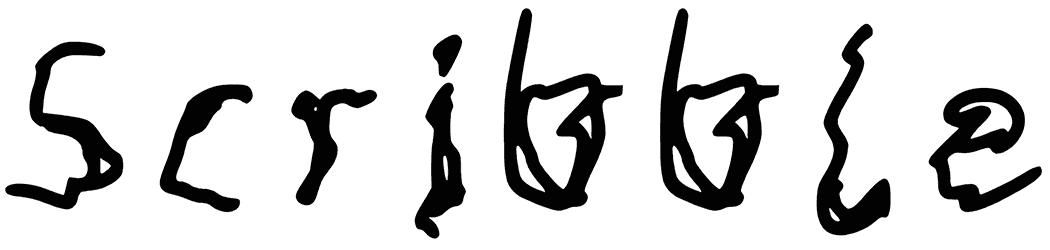
Scribble Font
When you set a distinct and eye-catching letterform on your words, everything they say to your followers will capture a lot of attention. The Scribble font, as its name suggests, has an irregular and realistic visual tha…
When you set a distinct and eye-catching letterform on your words, everything they say to your followers will capture a lot of attention. The Scribble font, as its name suggests, has an irregular and realistic visual that could be a unique selection for many layouts, like a kids’ zone poster design. Even without numbers and most punctuation marks, this scribble font will help you create a cool presentation.